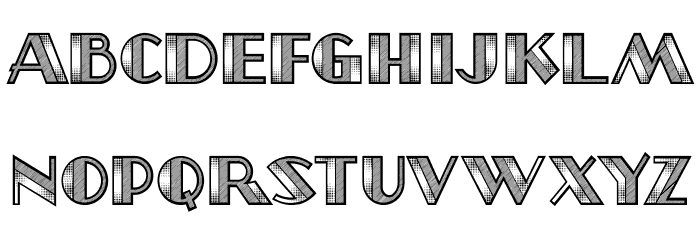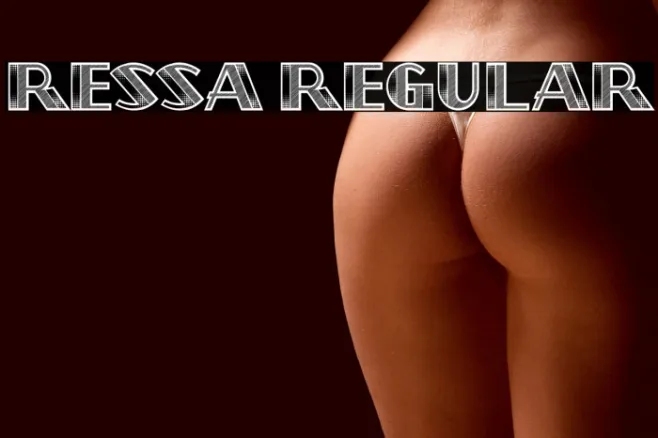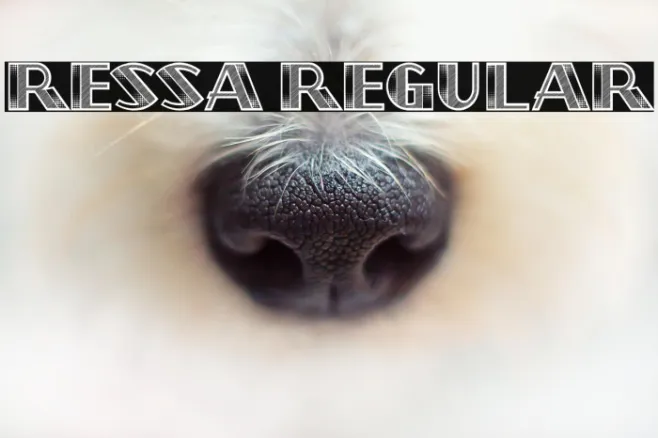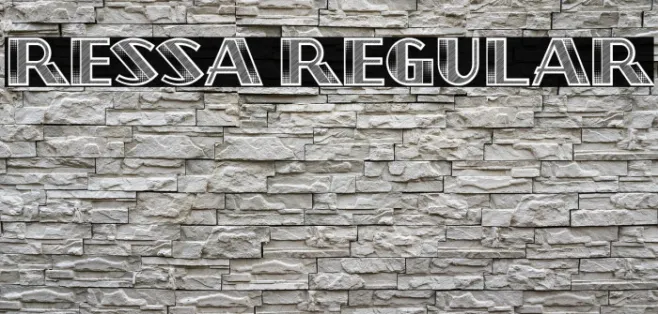
Ressa Regular Font
This font features a bold, decorative style with a unique 3D effect created by intricate line shading. The uppercase letters are designed with a strong geometric structure, giving them a modern and dynamic appearance. The lines within each character add depth and texture, making the font stand out in any design. The overall look is both artistic and structured, suitable for creative projects that require a distinctive and eye-catching typeface.
A bold, decorative font with a 3D line-shaded effect.
- Proposed Projects: Ideal for posters, logos, headlines, and branding materials that need a striking and artistic touch.
- Overall Style: Modern, Decorative